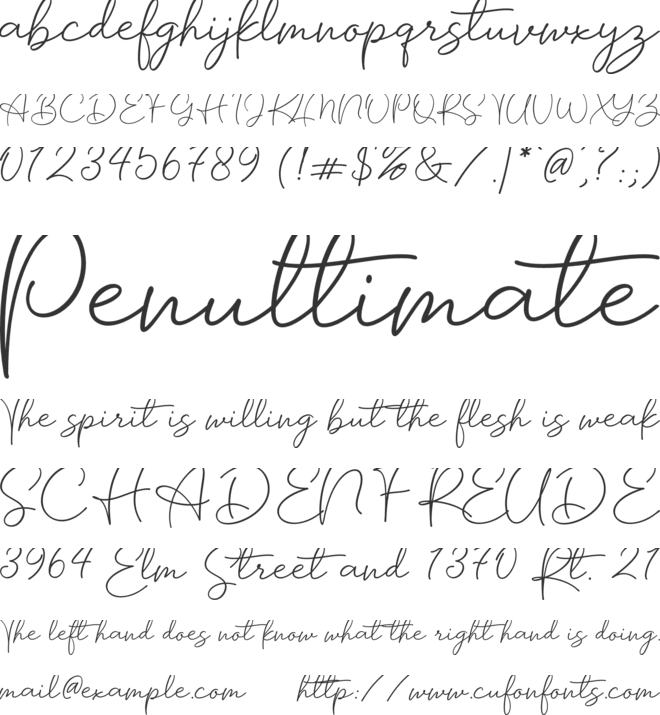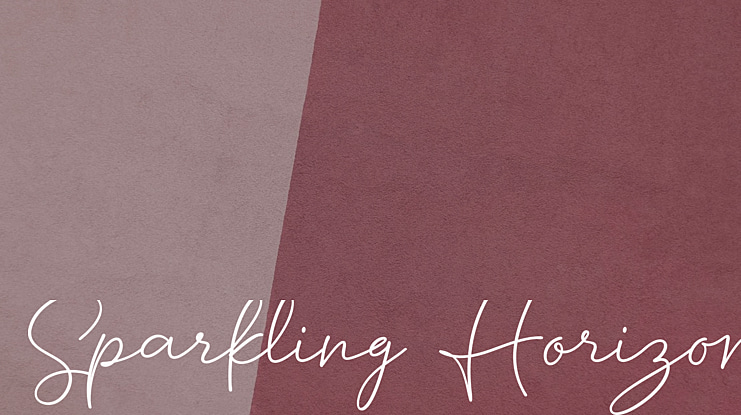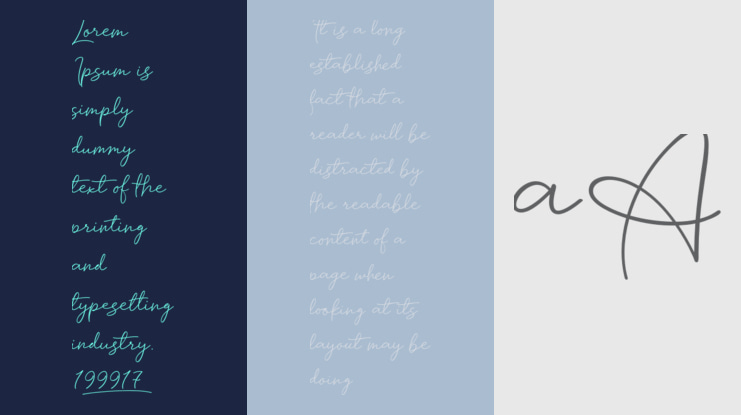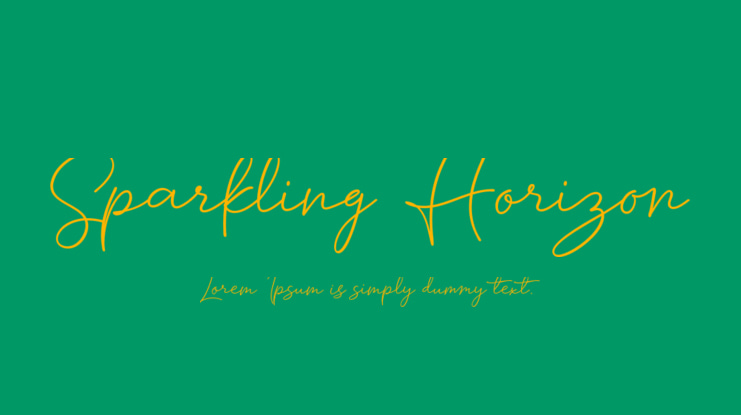
Introducing the captivating "Sparkling Horizon" font—a mesmerizing handwritten typeface that captures the essence of limitless creativity and shimmering elegance. Each stroke of this font evokes the sensation of glistening sunlight on the horizon, infusing your designs with a touch of radiant charm. Whether it's for invitations, logos, or creative projects, "Sparkling Horizon" brings a sense of enchantment to your words. Unleash your imagination as you create with this font, where each character sparkles like a unique star on the canvas of your design journey.
"Sparkling Horizon" font is perfect for any occasion. It can be used for invitations, posters, logos, or any other design project that requires a personal touch. With its naturally authentic feel, our Handwriting Font will give your projects a warm and welcoming ambiance.
The design of "Sparkling Horizon" font was carefully crafted to resemble the natural flow of handwritten script. It includes over 33 opentype ligatures, providing a natural and organic look to your text. Additionally, a full set of lowercase alternates is included, allowing for even more versatility. You will also find 30 underline swashes, as well as various ornaments, arrows, and scribbles.